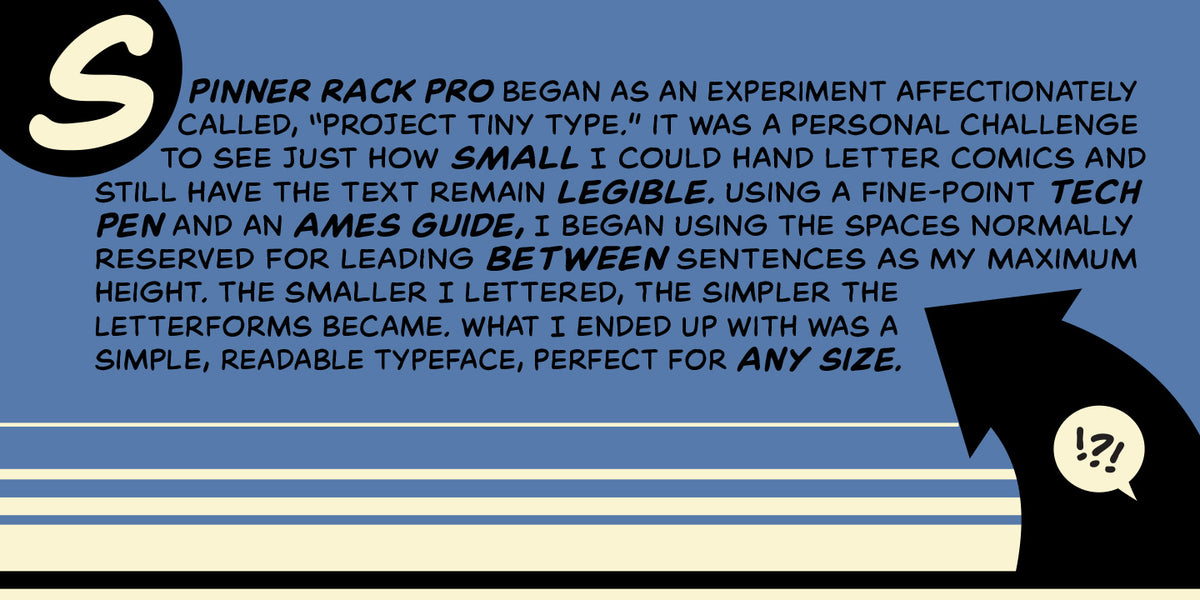
Spinner Rack Pro Font
Spinner Rack Pro Font - Spinner rack pro bb regular. Use the controls below to customize your text string and its. ← back to family page. Web includes regular, italic, and bolditalic, with european characters, and opentype autoligatures. Spinner rack pro bb is a new and improved version of the classic blambot typeface, spinner rack bb! Select a license to update price. Regular, italic, bold, bold italic. Web spinner rack pro bb is a new and improved version of the classic blambot typeface, spinner rack bb!
Spinner rack pro bb regular. ← back to family page. Spinner rack pro bb is a new and improved version of the classic blambot typeface, spinner rack bb! Select a license to update price. Use the controls below to customize your text string and its. Web spinner rack pro bb is a new and improved version of the classic blambot typeface, spinner rack bb! Web includes regular, italic, and bolditalic, with european characters, and opentype autoligatures. Regular, italic, bold, bold italic.
Spinner rack pro bb regular. ← back to family page. Web spinner rack pro bb is a new and improved version of the classic blambot typeface, spinner rack bb! Spinner rack pro bb is a new and improved version of the classic blambot typeface, spinner rack bb! Select a license to update price. Regular, italic, bold, bold italic. Web includes regular, italic, and bolditalic, with european characters, and opentype autoligatures. Use the controls below to customize your text string and its.
Spinner rack pro bb regular. ← back to family page. Select a license to update price. Spinner rack pro bb is a new and improved version of the classic blambot typeface, spinner rack bb! Use the controls below to customize your text string and its.
Use the controls below to customize your text string and its. Web spinner rack pro bb is a new and improved version of the classic blambot typeface, spinner rack bb! Select a license to update price. Spinner rack pro bb is a new and improved version of the classic blambot typeface, spinner rack bb! Spinner rack pro bb regular.
Spinner rack pro bb regular. Regular, italic, bold, bold italic. ← back to family page. Use the controls below to customize your text string and its. Web includes regular, italic, and bolditalic, with european characters, and opentype autoligatures.
Spinner rack pro bb is a new and improved version of the classic blambot typeface, spinner rack bb! Spinner rack pro bb regular. Regular, italic, bold, bold italic. Web includes regular, italic, and bolditalic, with european characters, and opentype autoligatures. Use the controls below to customize your text string and its.
Regular, italic, bold, bold italic. Web includes regular, italic, and bolditalic, with european characters, and opentype autoligatures. ← back to family page. Select a license to update price. Use the controls below to customize your text string and its.
Web includes regular, italic, and bolditalic, with european characters, and opentype autoligatures. Spinner rack pro bb regular. Use the controls below to customize your text string and its. ← back to family page. Select a license to update price.
Web includes regular, italic, and bolditalic, with european characters, and opentype autoligatures. Web spinner rack pro bb is a new and improved version of the classic blambot typeface, spinner rack bb! ← back to family page. Regular, italic, bold, bold italic. Select a license to update price.
Use the controls below to customize your text string and its. Select a license to update price. ← back to family page. Web spinner rack pro bb is a new and improved version of the classic blambot typeface, spinner rack bb! Spinner rack pro bb is a new and improved version of the classic blambot typeface, spinner rack bb!
Web spinner rack pro bb is a new and improved version of the classic blambot typeface, spinner rack bb! Regular, italic, bold, bold italic. Web includes regular, italic, and bolditalic, with european characters, and opentype autoligatures. Spinner rack pro bb is a new and improved version of the classic blambot typeface, spinner rack bb! Use the controls below to customize.
Spinner rack pro bb is a new and improved version of the classic blambot typeface, spinner rack bb! Web includes regular, italic, and bolditalic, with european characters, and opentype autoligatures. Spinner rack pro bb regular. Select a license to update price. Use the controls below to customize your text string and its.
Web Includes Regular, Italic, And Bolditalic, With European Characters, And Opentype Autoligatures.
Spinner rack pro bb regular. ← back to family page. Use the controls below to customize your text string and its. Spinner rack pro bb is a new and improved version of the classic blambot typeface, spinner rack bb!
Web Spinner Rack Pro Bb Is A New And Improved Version Of The Classic Blambot Typeface, Spinner Rack Bb!